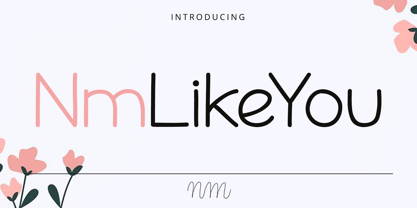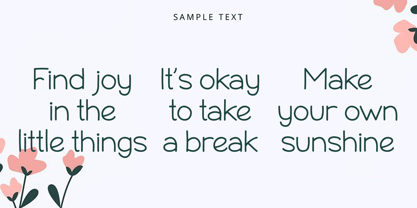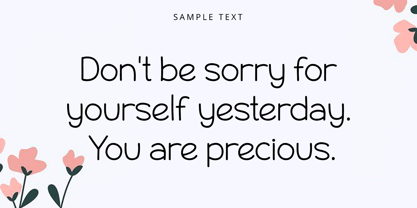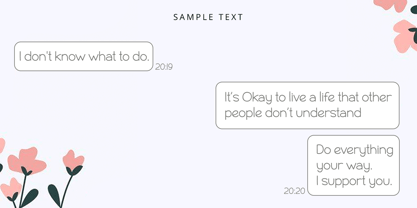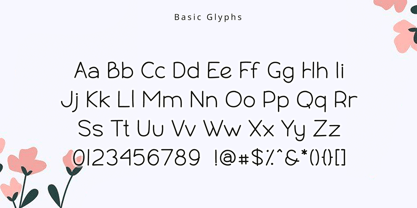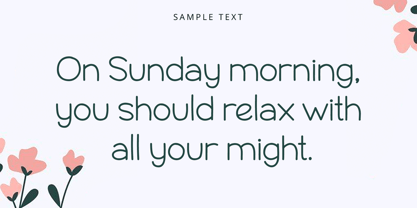
Nm LikeYou
by NM Fonts
The Nm LikeYou Font Family was designed by Minji Noh and published by NM Fonts. Nm LikeYou contains 1 styles. More about this family
Nm LikeYou is a sweet and friendly handwritten font with a natural, easygoing charm. Its soft strokes and playful letterforms create a warm and personal feel, as if each word were written by hand just for you.
Perfect for social media graphics, digital planners, notes, greeting cards, stickers, branding, and everyday creative projects, Nm LikeYou adds a gentle handwritten touch without feeling overly decorative. Its casual and approachable style works naturally across both playful and simple designs.
Whether used on digital screens or in print, Nm LikeYou brings a cozy and personal character to your words, making everyday messages feel a little more special.
Designers: Minji Noh
Foundry: NM Fonts